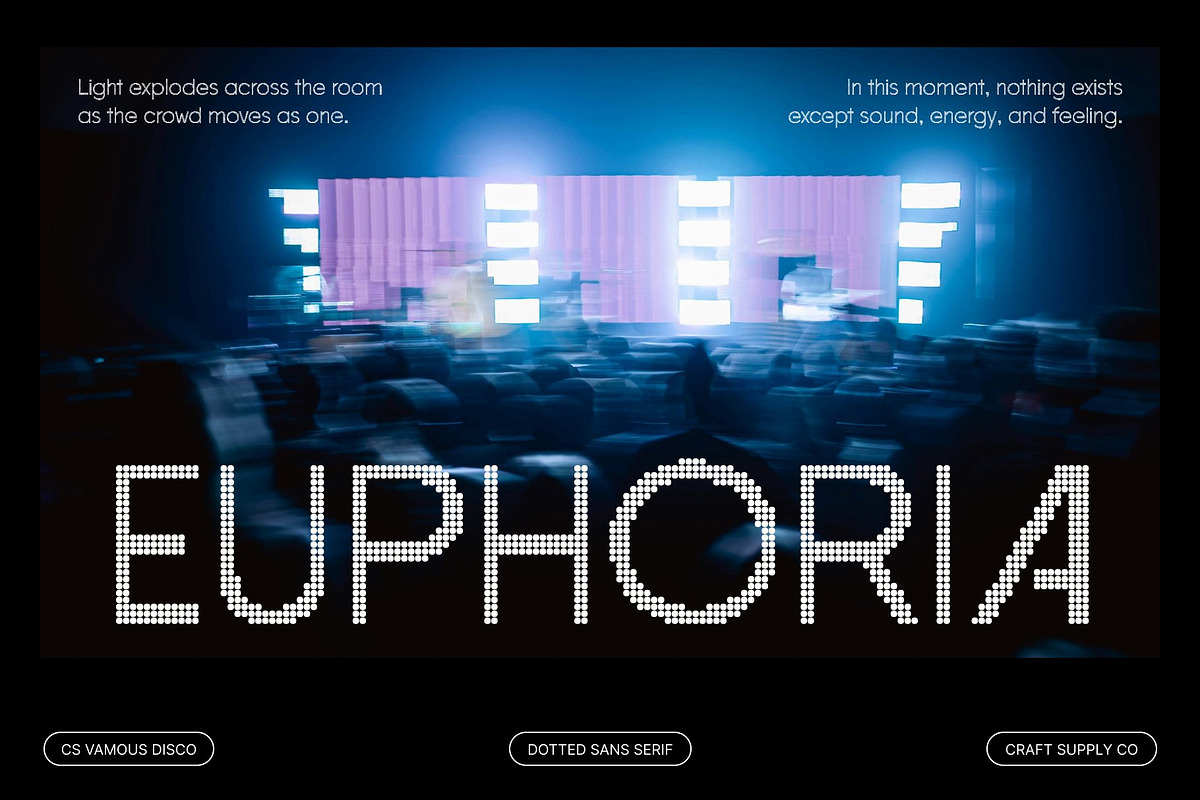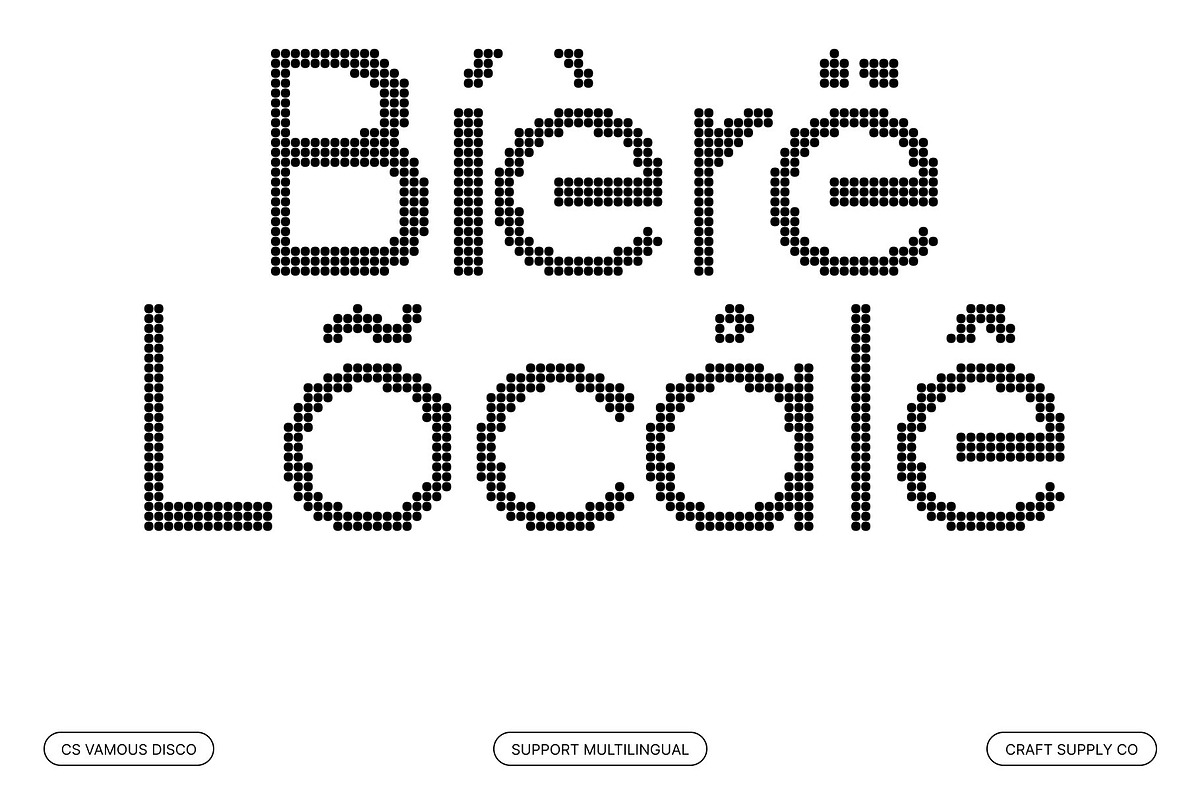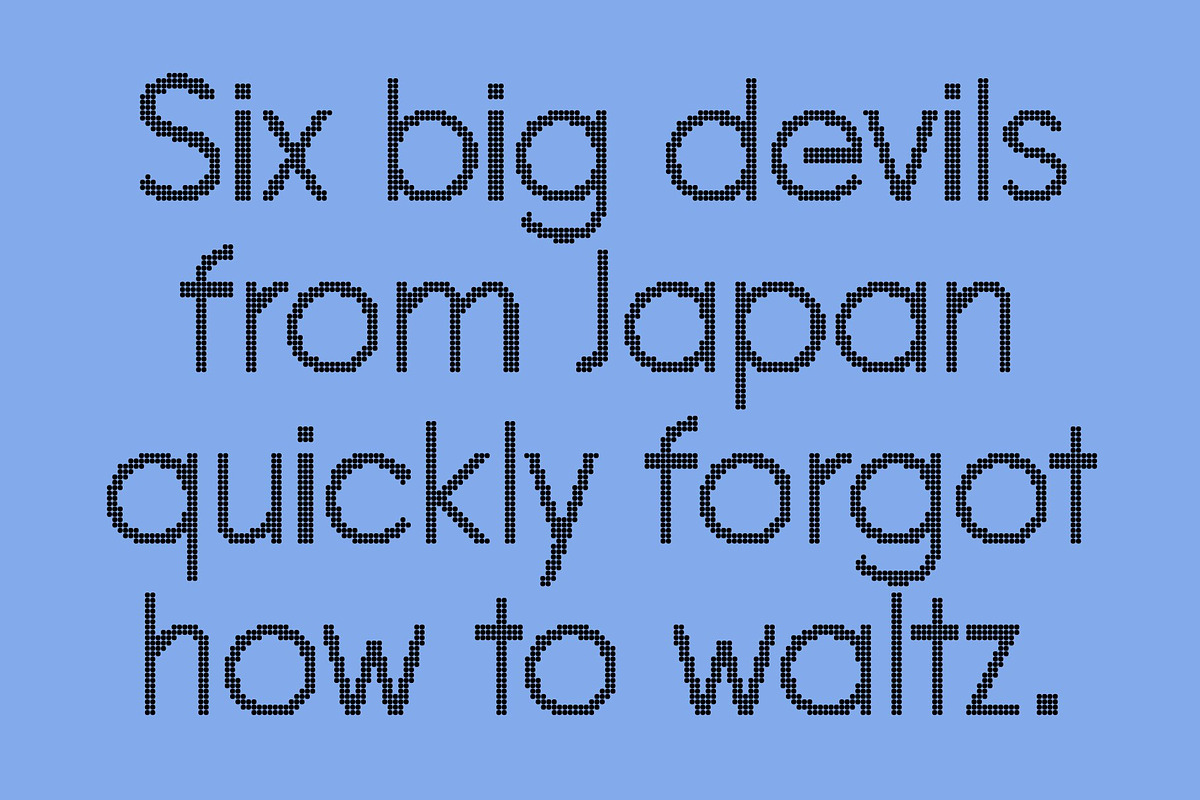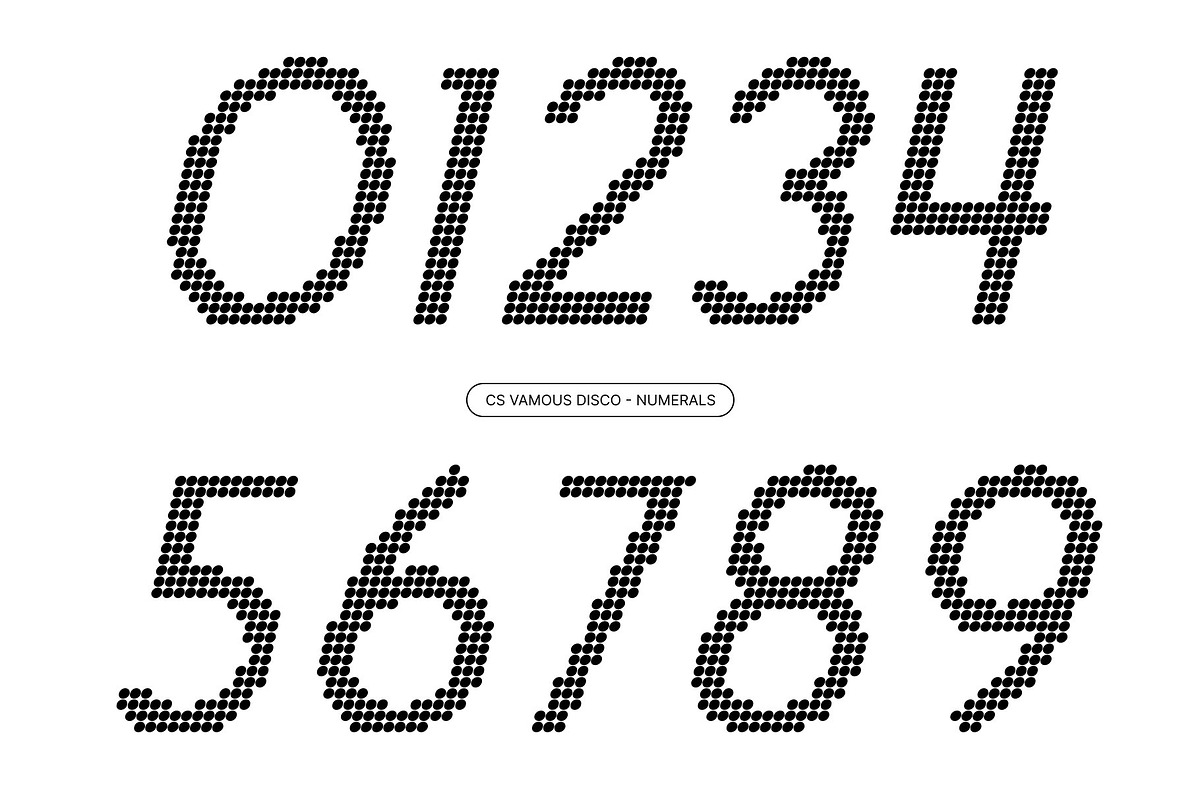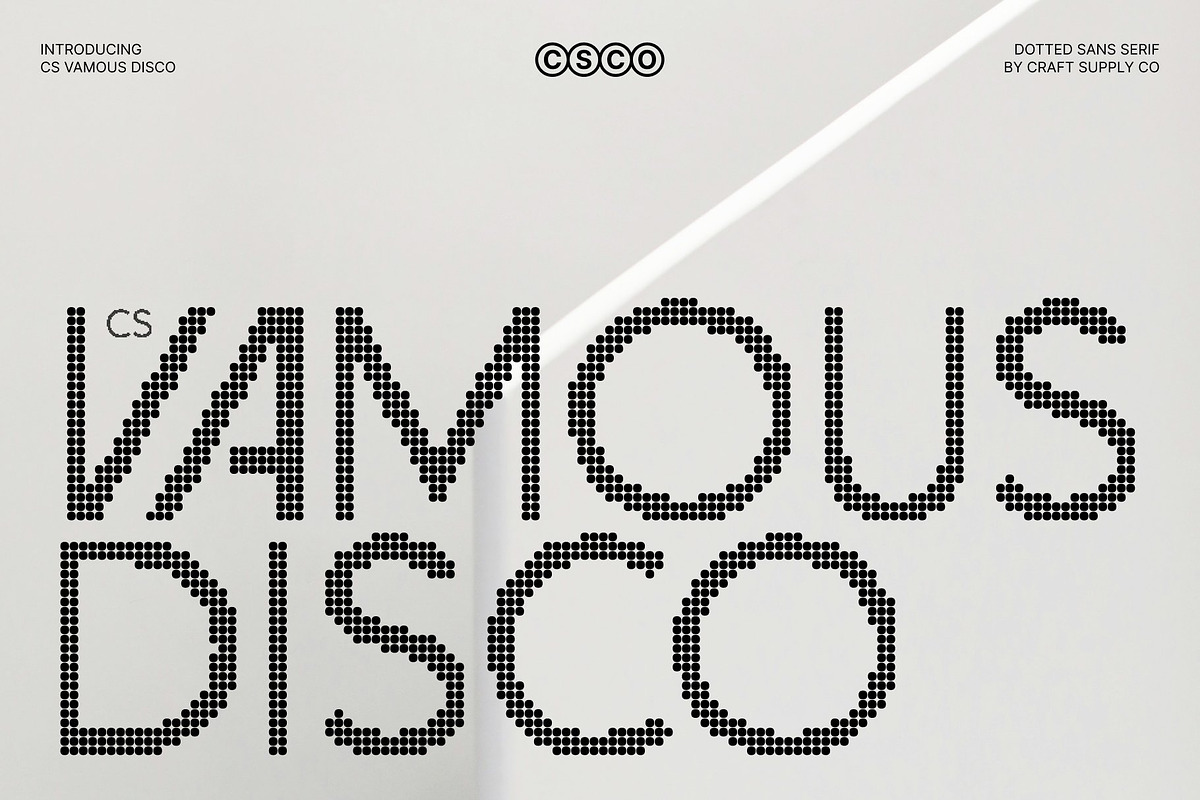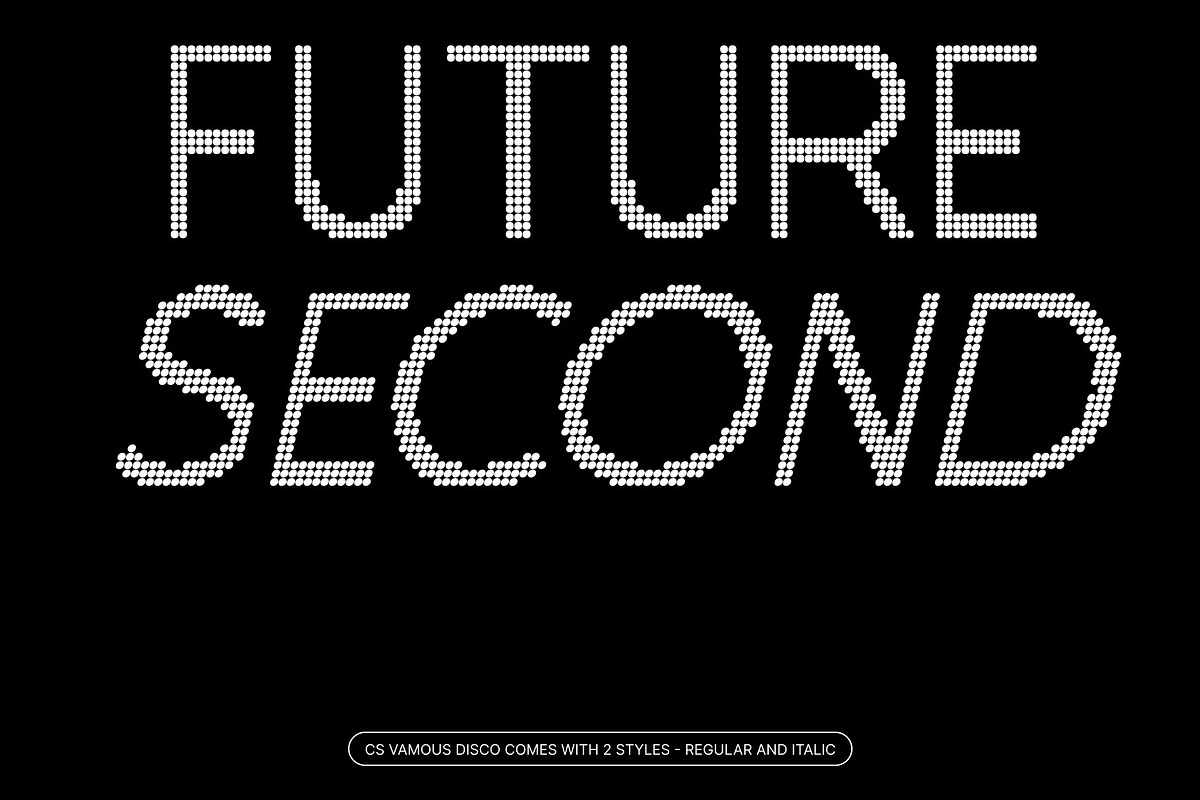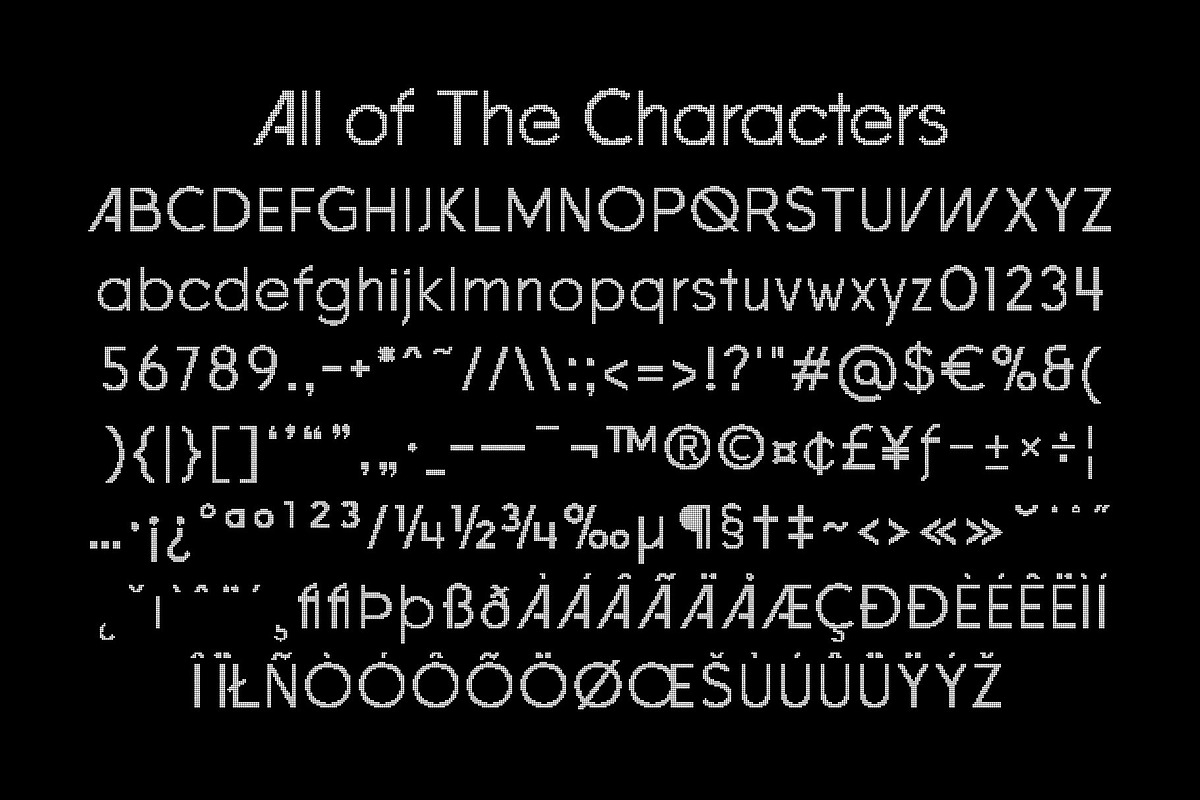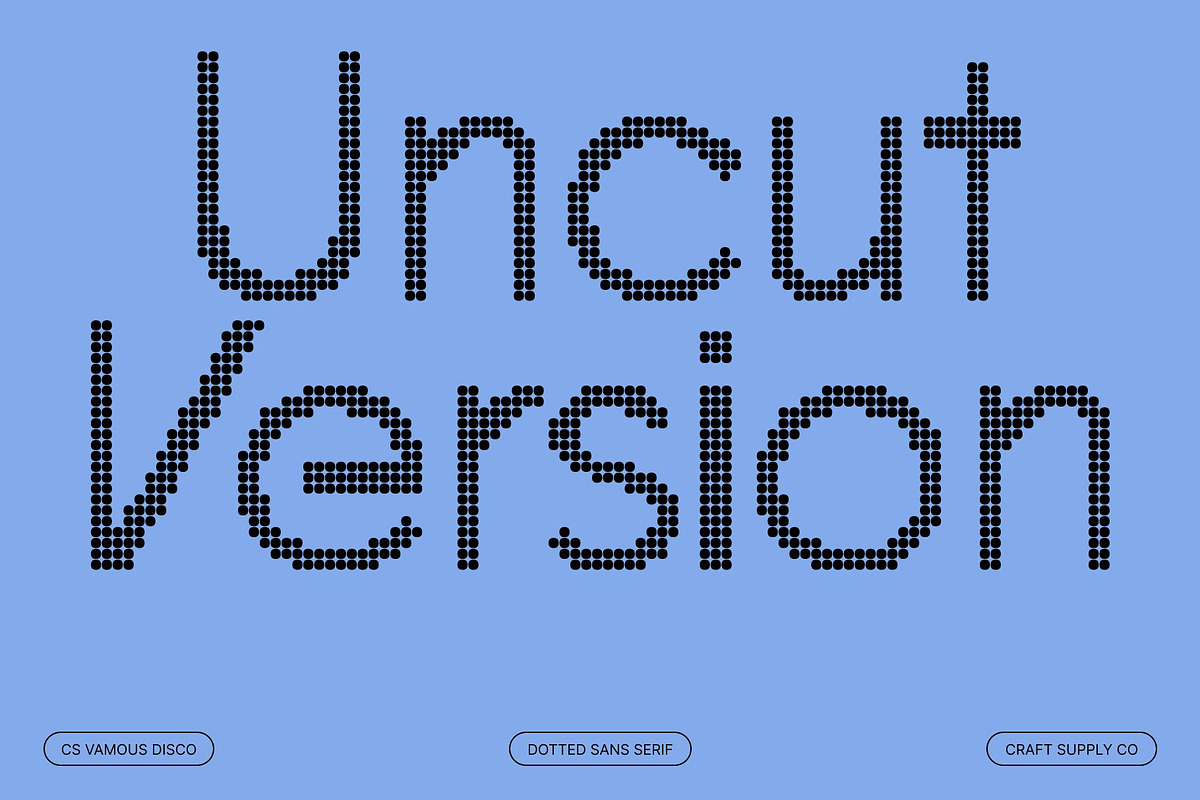
CS Vamous Disco
CS Vamous Disco – Modern Geometric Sans Serif with Sparkling Party Energy
Clean Geometry with Disco Dot Personality This modern geometric sans serif transforms into a lively disco dot display style, bringing sparkle and movement to its clean, minimal structure. The precise shapes remain crisp and balanced, while the dotted texture adds rhythm, joy, and a glowing dance-floor vibe that makes every letter feel alive.
Structured Precision with Playful Shine The consistent strokes and geometric forms are enhanced by a dotted finish that mimics lights and glitter. This combination keeps the font sleek and modern while introducing a cheerful, celebratory personality perfect for eye-catching typography.
Fresh, Stylish, and Full of Energy With its minimalist base and sparkling texture, the font balances sophistication and fun. It feels trendy, youthful, and expressive ideal for projects that want to stay modern while radiating excitement and positivity.
Perfect for Posters, Branding, and Party Visuals This font works beautifully for logos, titles, posters, social media graphics, and event promotions. The geometric clarity ensures readability, while the disco style adds bold visual charm, turning simple layouts into vibrant, energetic designs.